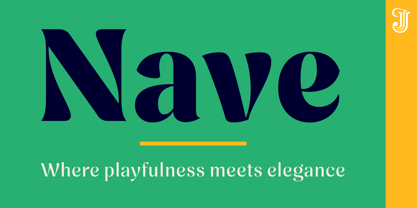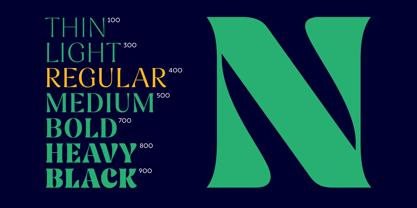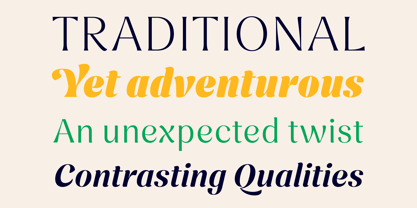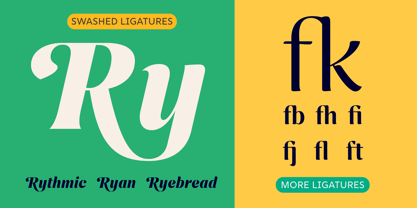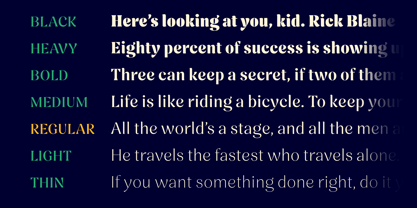
La familia tipográfica Nave fue diseñada por Jamie Clarke y publicada por Jamie Clarke Type. Nave contiene 14 estilos y opciones de paquete familiar.
Nave is the perfect choice for designers looking to intertwine tradition with creativity. Its characters are framed by a formal, rigid outer shape, revealing an unexpected twist: a flowing, sensuous inner form. These contrasting qualities breathe life into words, inviting readers on a journey from the familiar to the extraordinary.
Nave is designed for forward-thinking designers and businesses who value classic design but also want to infuse their work with personality and warmth.
What's in a name?
Around my studio, numerous centuries-old churches grace the surrounding villages. Most have traditional stone exteriors, square towers, and utilitarian shapes. However, their interiors often showcase creativity with decorative columns, fluid arches, and intricate ceilings. Nave follows this concept: it has a conventional exterior shape, but its interior features are dynamic and fluid.
Nave
Jamie Clarke is an independent type designer based near Bristol, UK. He divides his time between lettering-led illustration commissions and creating original typefaces. All of Jamie’s typefaces have been designed in conjunction with his lettering projects. They share the dynamic and expressive qualities of his lettering while being crafted to meticulous standards. His fonts have been used by millions of designers and have appeared in projects ranging from Barbie to Beers and Bond (James Bond).